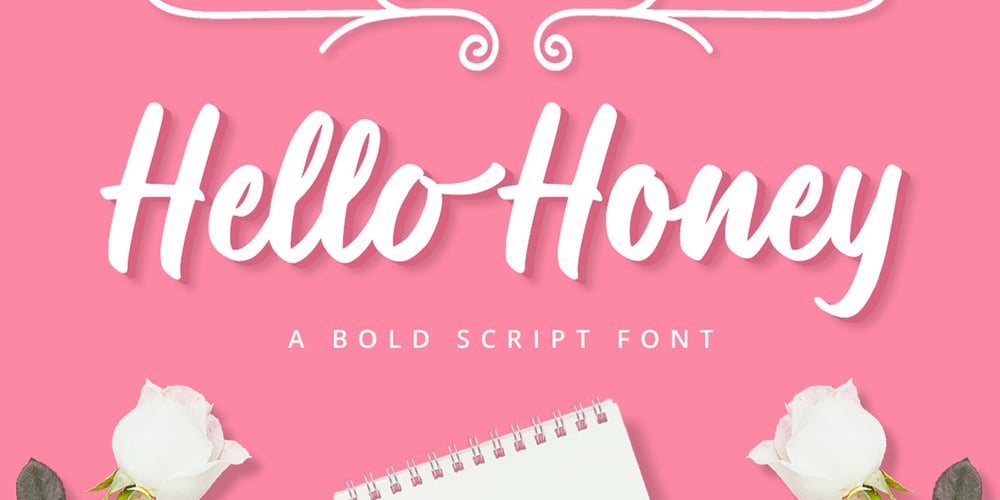
Hello Honey
Hello Honey font
Hello Honey Font Family was designed by Heri Imanudin and published by Krafted. Hello Honey contains 1 styles and family package options. Looking for a font that’ll make your branding sparkle? A versatile, modern, and happy font? Introducing Hello Honey – A Bold Script Font.This bold script font can be used for various different promotions or projects. Use it to create standout headings, promote your online sales, Instagram quotes, YouTube vlogs, and even printed materials like business cards, t-shirts, or invitations. Get ready to attract your audience and make your branding bold with Hello Honey. What you’ll get: Multilingual & Ligature Support Full sets of Punctuation and Numerals Compatible with: Adobe Suite Microsoft Office KeyNote Pages Software Requirements: The fonts that you’ll receive in the pack are widely supported by most software. In order to get the full functionality of the selection of standard ligatures (custom created letters) in the script font, any software that can read OpenType fonts will work. We hope you enjoy this font and that it makes your branding sparkle! Feel free to reach out to us if you’d like more information or if you have any concerns.